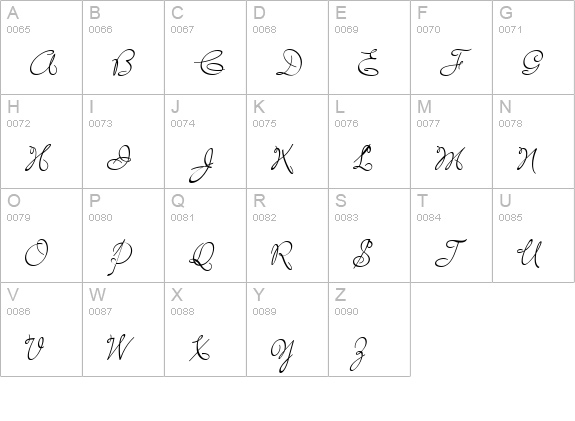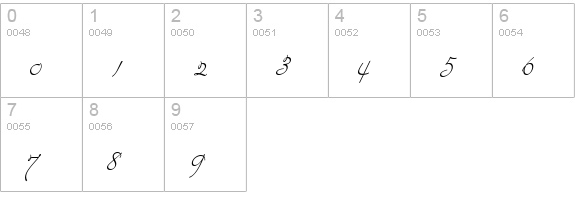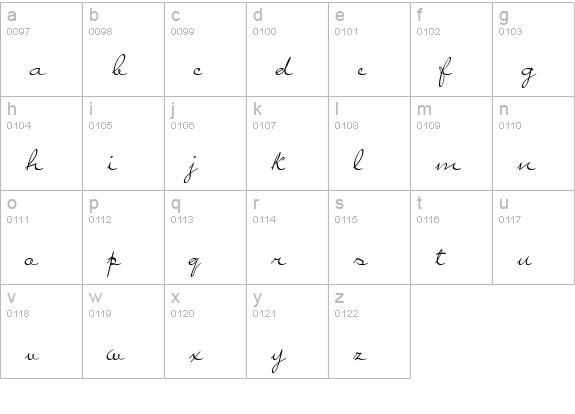
BayernHandschriftNF Font Details
BayernHandschriftNF is a charming and elegant handwritten font that exudes a sense of nostalgia and sophistication. Its flowing strokes and delicate curves give it a timeless appeal, perfect for adding a personal touch to any design project. This font is free for personal and commercial use, making it a versatile choice for a wide range of applications. Whether you are creating invitations, logos, or branding materials, BayernHandschriftNF will add a touch of elegance and uniqueness to your work. You can easily download this beautiful font for free at FontsMarket.com and start using it in your projects today.